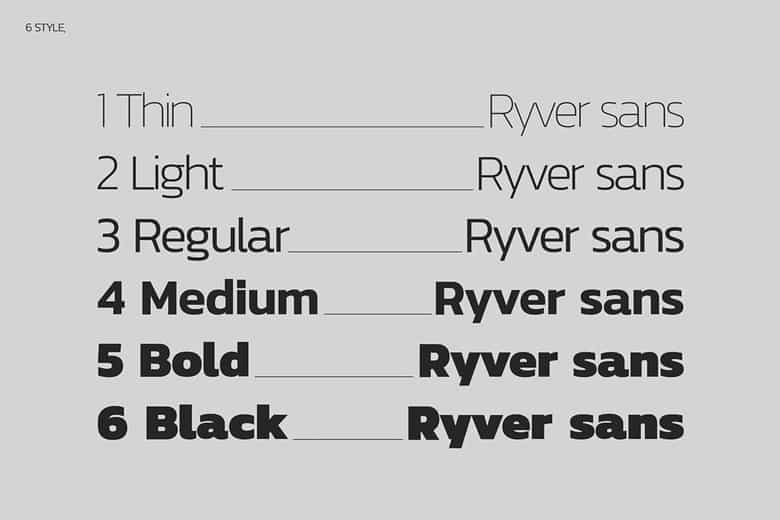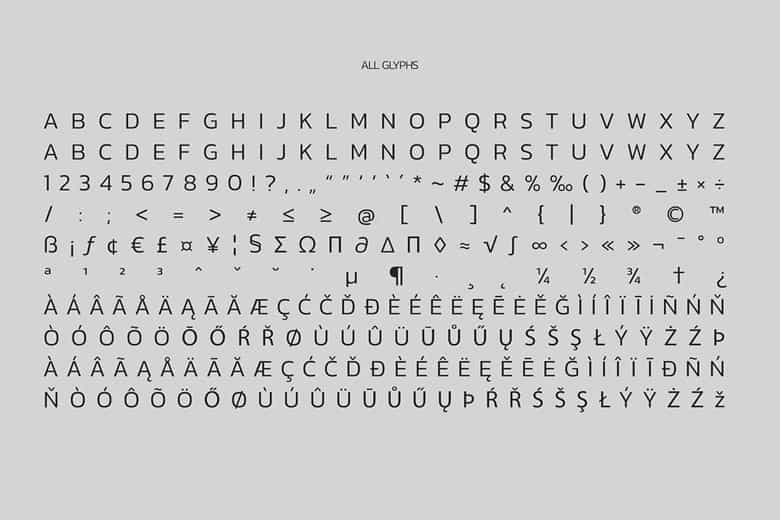
Ryver Sans Font is a design for maximum visuals. They are the six weights perfect for posters, social media, headlines or even large format print – when you want attention. It is a very character font so it is easy to recognize.